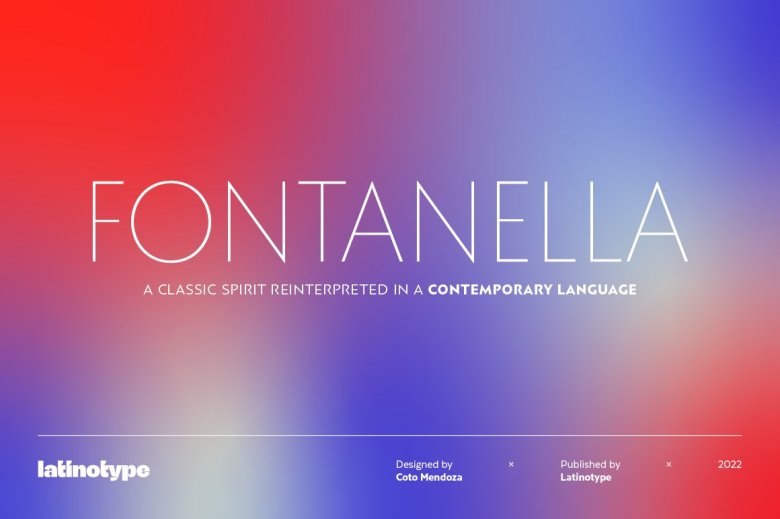
Fontanella Font
Fontanella is a sans serif font designed by Coto Mendoza, it arises from calligraphy and manual drawing based on studying the skeleton structure and classic proportions of roman capital letters. this starting route early leads to a collection of 8-weight sans-serif family and its italics.
Other glyphs in the alternates include small caps, old numbers and width variants. The slightly enlarged x-height offers it added flexibility for composing very short texts in editorial, fashion, branding, magazine and television advertising as well as web banners or window display.
Fontanella Sans Serif Font Family